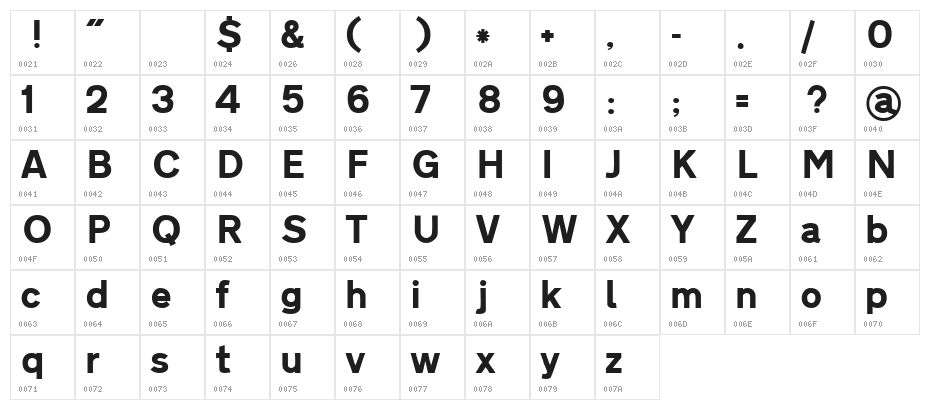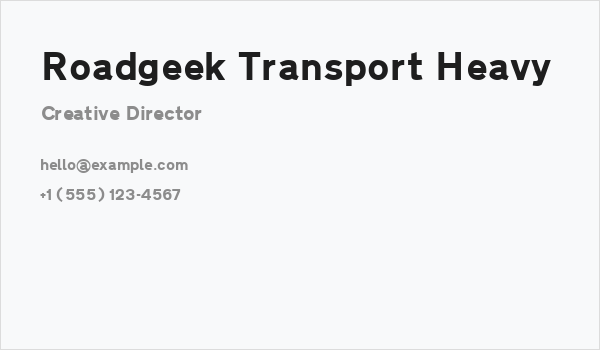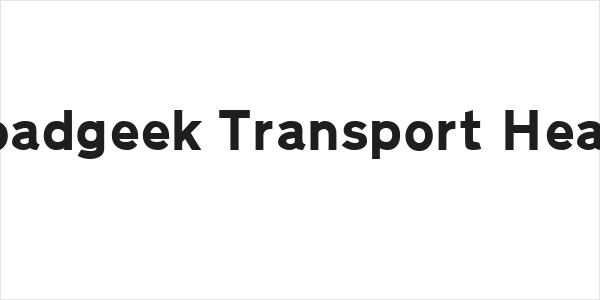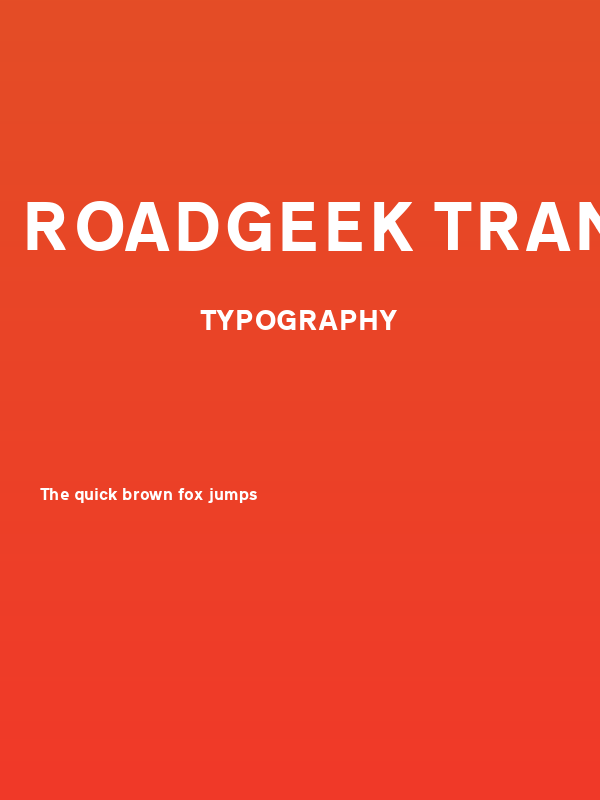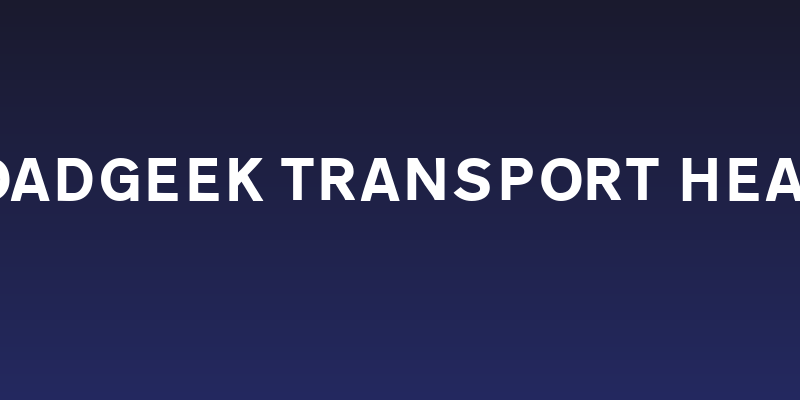
Roadgeek Transport Heavy Font
Roadgeek Transport Heavy Description
This font features a bold and robust design, characterized by its thick strokes and clear, legible letterforms. The uppercase and lowercase letters maintain a consistent weight, providing a uniform appearance. The numerals are equally bold, ensuring readability in various contexts. Special characters are designed with the same attention to clarity and strength, making them suitable for signage and display purposes. The overall style is modern and functional, with a focus on practicality and visibility.
| Use Case | Headlines, Signage, Logos |
| Proposed Projects | This font is perfect for road signs, transportation graphics, and any project requiring high visibility and readability. |